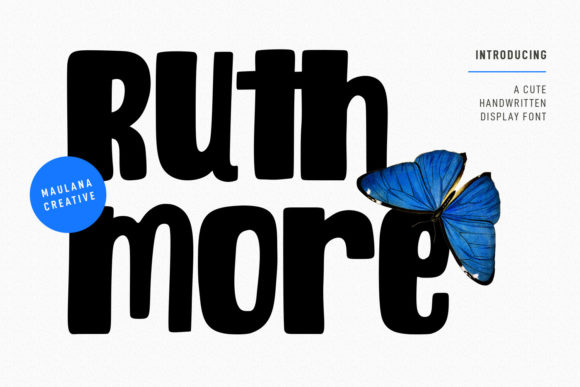
Prepare for the festive season of joy and giving with Ruthmore Cute Font, the typeface that embodies the spirit of Christmas and holiday cheer. Each letter dances across the page with an enchanting charm that will add a touch of magic to any design.
Ruthmore Cute Font is not just another font; it's an expression of your creativity, tailored to ignite your imagination and captivate your audience. Whether you're crafting heartwarming Christmas cards, festive social media posts, or designing a website that exudes holiday spirit, Ruthmore Cute Font is the perfect choice.
With its flowing strokes and playful ligatures, Ruthmore Cute Font adds a touch of whimsy and delight to any project. It's a font that's as versatile as a winter wonderland, perfectly suited for both long and short texts, and pairs beautifully with sans or serif fonts for added impact.
Imagine your Christmas greeting cards adorned with Ruthmore Cute Font, carrying heartfelt messages that warm the hearts of your loved ones. Picture social media posts that spread festive cheer, with Ruthmore Cute Font adding a touch of magic to every caption and comment. Envision a Christmas-themed website that invites visitors into a world of holiday enchantment, with Ruthmore Cute Font guiding them through a winter wonderland of products and experiences.
Ruthmore Cute Font is more than just a typeface; it's a creative companion that will transform your holiday designs into works of art. It's a font that will help you spread joy, ignite imaginations, and create memories that last a lifetime.
So embrace the magic of Christmas with Ruthmore Cute Font, and let your creativity shine brighter than the North Star. Make this holiday season one to remember, with designs that capture the true spirit of Christmas. Happy Holidays!